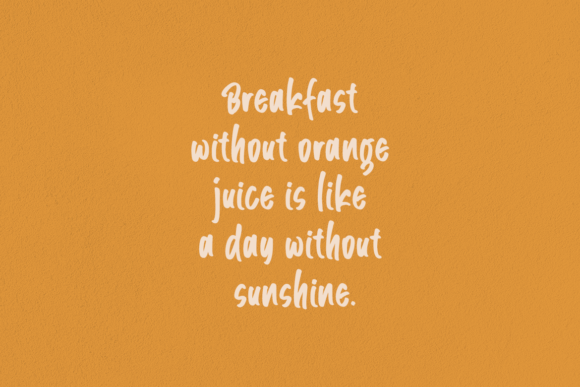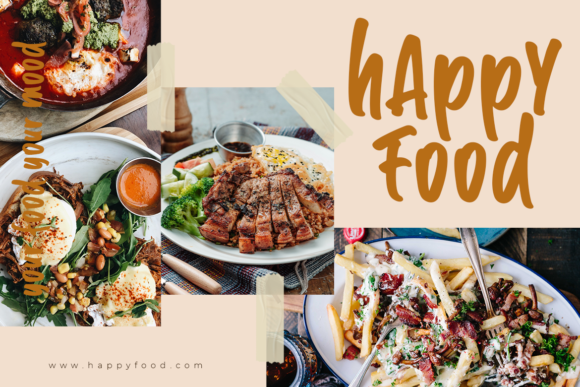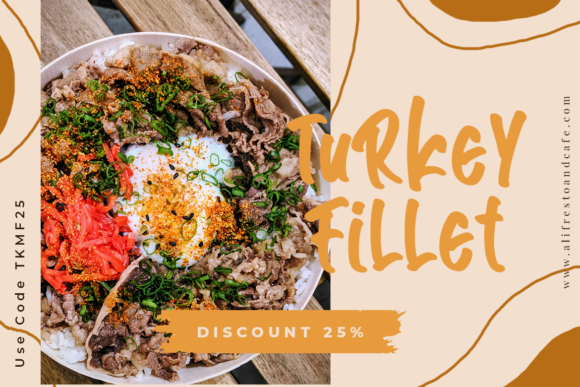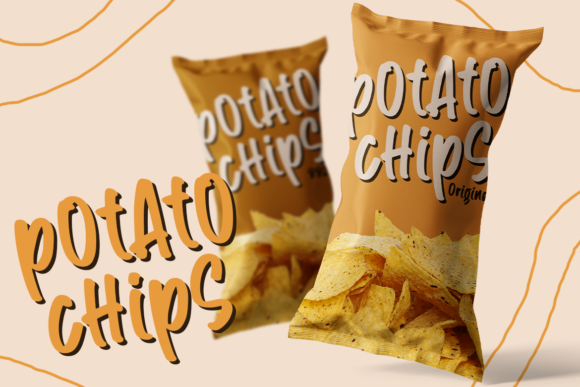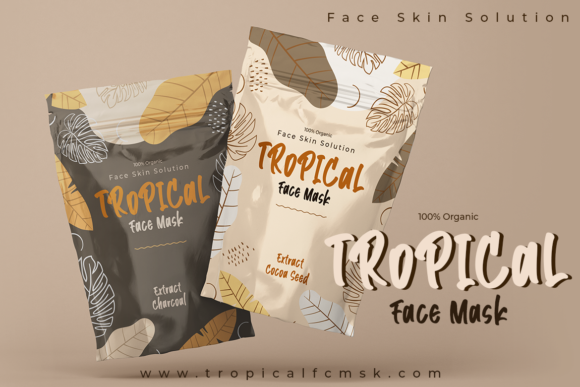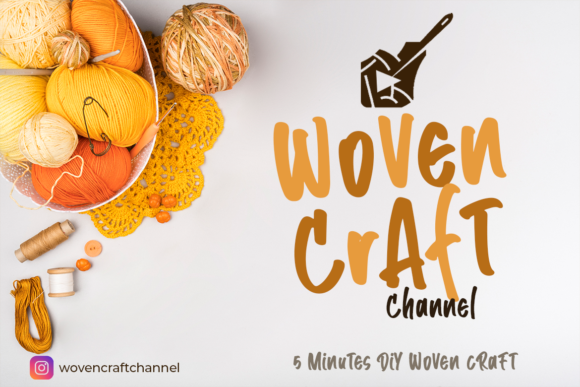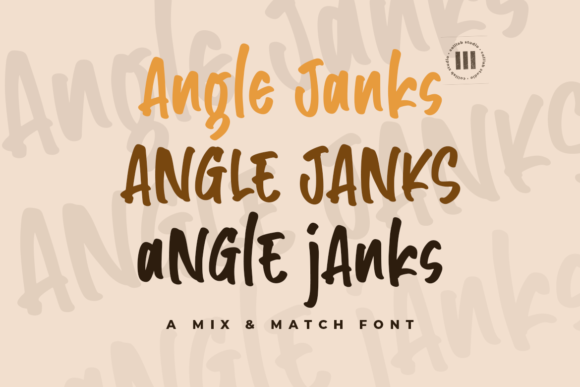
Discover the Elegance of Angle Janks Font: Elevate Your Designs with a Touch of Sophistication
Are you on the hunt for a font that embodies the perfect blend of delicacy, elegance, and casual charm? Look no further than Angle Janks Font. This stunning handwritten font is a game-changer for designers and crafters alike, offering a unique and versatile solution to elevate your creative projects. In this article, we’ll dive into the world of Angle Janks Font, exploring its features, benefits, and the endless possibilities it presents for bringing your designs to life.
The Unique Charm of Angle Janks Font
Angle Janks Font is a masterful blend of mix and match elements, resulting in a delicate, elegant, yet casual handwritten font. Its distinctive characters are carefully crafted to provide a fresh and sophisticated look that’s sure to capture attention. Whether you’re working on a branding project, crafting a social media post, or designing a beautiful printable, Angle Janks Font is the perfect companion to help you convey your message with style and poise.
Why Angle Janks Font Stands Out
So, what makes Angle Janks Font so special? Here are just a few reasons why it’s become a go-to choice for designers and crafters:
- Unique Characters: Each character in Angle Janks Font is meticulously designed to ensure that your text stands out from the crowd. The font’s unique elements add a touch of personality to your designs, making them more engaging and memorable.
- Versatility: Angle Janks Font is incredibly versatile, making it suitable for a wide range of design applications. From elegant branding materials to casual social media posts, this font adapts seamlessly to any style or theme.
- Elegant yet Casual: The font strikes the perfect balance between elegance and casualness, allowing you to create designs that are both sophisticated and approachable.
Bringing Your Ideas to Life with Angle Janks Font
One of the most exciting aspects of Angle Janks Font is its ability to transform your ideas into visually stunning designs. Whether you’re a seasoned designer or a crafting enthusiast, this font provides the perfect foundation for bringing your creative vision to life. Here are a few ways you can use Angle Janks Font to elevate your projects:
- Branding: Create eye-catching logos, business cards, and marketing materials that showcase your brand’s personality and style.
- Social Media: Add a touch of elegance to your social media posts, making them stand out in crowded feeds and engaging your audience more effectively.
- Crafting: Use Angle Janks Font to create beautiful printable art, planners, and journals that are both functional and visually appealing.
Tips for Getting the Most Out of Angle Janks Font
To truly maximize the potential of Angle Janks Font, here are a few tips to keep in mind:
- Experiment with Pairings: Don’t be afraid to combine Angle Janks Font with other fonts to create unique and interesting visual effects.
- Play with Size and Color: Experiment with different sizes and colors to add depth and emphasis to your designs.
- Keep it Simple: Sometimes, less is more. Allow the elegance of Angle Janks Font to shine by keeping your designs clean and uncluttered.
Angle Janks Font is more than just a font – it’s a design solution that offers a perfect blend of elegance, delicacy, and casual charm. Its unique characters and versatility make it an invaluable asset for designers and crafters looking to elevate their creative projects. By incorporating Angle Janks Font into your design toolkit, you’ll unlock a world of possibilities for creating stunning, memorable designs that capture the essence of your brand or personal style. So why wait? Discover the magic of Angle Janks Font today and watch your designs come alive!